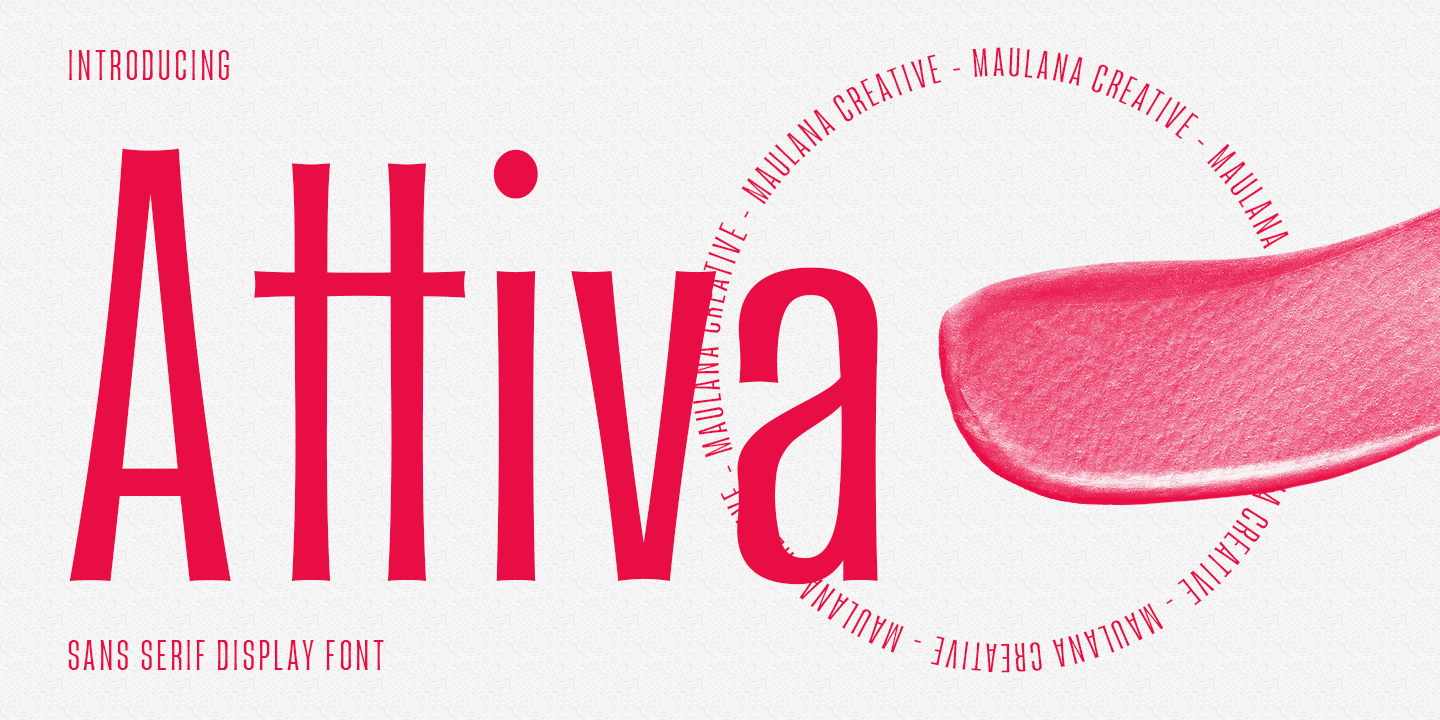
MC Attiva Font excels in diverse design applications including dynamic fitness center branding, active lifestyle marketing, energetic sports equipment packaging, motivational wellness campaigns, vibrant athletic apparel designs, performance training materials, competitive event promotions, and high-energy corporate communications that require active sophistication and dynamic professionalism.
What makes MC Attiva Font truly exciting is its powerful embodiment of active energy and dynamic motivation that captures the essence of peak performance and the unstoppable drive that propels individuals toward their fitness goals and athletic achievements through consistent action and determined effort. This energizing typeface features bold, streamlined letterforms with subtle motion-inspired elements that evoke images of athletes in motion, dynamic workouts, and the focused intensity that defines active lifestyles and competitive excellence. The font's energetic character reflects the vitality and determination of active individuals, making it perfect for brands that want to communicate motivation, performance excellence, and the empowering energy that comes from maintaining an active, health-focused lifestyle. Its dynamic appearance creates immediate associations with fitness, energy, and athletic achievement.
The MC Attiva Font family includes multiple weights and active variations designed to enhance dynamic communication. The collection features Light, Regular, Medium, Bold, and Black weights, each maintaining the font's characteristic energetic appeal while offering different levels of active presence. The family also includes alternate characters with varying motion effects, dynamic elements that simulate movement and energy, and stylistic sets that create powerful text arrangements reflecting the intensity of athletic performance. Additional features include contextual alternates and fitness ligatures that enhance the authentic, energetic appearance.
Fitness and performance professionals consistently choose MC Attiva Font Free Download for projects requiring authentic active character and athletic credibility. The font's energetic nature makes it particularly effective for fitness centers, sports brands, and wellness companies targeting audiences who prioritize active lifestyles and performance excellence. Its excellent readability across various applications ensures effective communication while maintaining the distinctive dynamic character that conveys energy and athletic authority.
The advanced OpenType capabilities of MC Attiva Font include contextual alternates, stylistic sets, and comprehensive character support that accommodates fitness terminology and performance expressions while preserving the font's authentic active character. The technical precision ensures consistent energetic appearance across different fitness applications and athletic platforms.
For creative professionals seeking a typeface that embodies genuine athletic heritage and active sophistication, MC Attiva Font offers unparalleled dynamic appeal and energetic elegance. Its ability to convey active motivation while maintaining functional communication makes it invaluable for fitness brands, sports organizations, and wellness companies. The font's distinctive energetic character ensures memorable athletic impact across all applications, creating powerful visual identity systems that celebrate the transformative power of active living and the inspiring energy that drives individuals to achieve peak performance and maintain healthy, dynamic lifestyles.